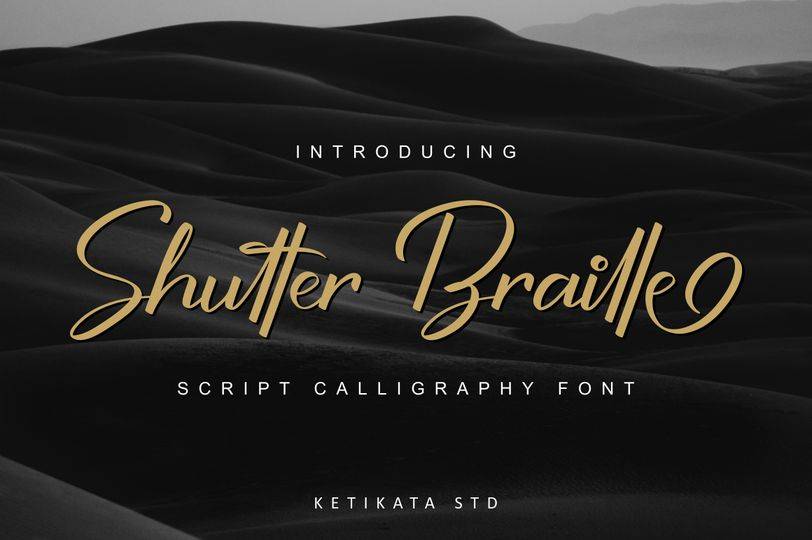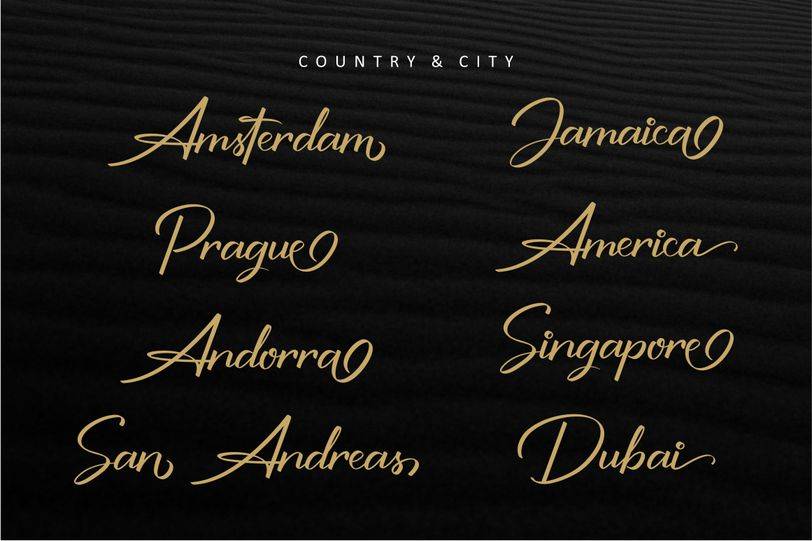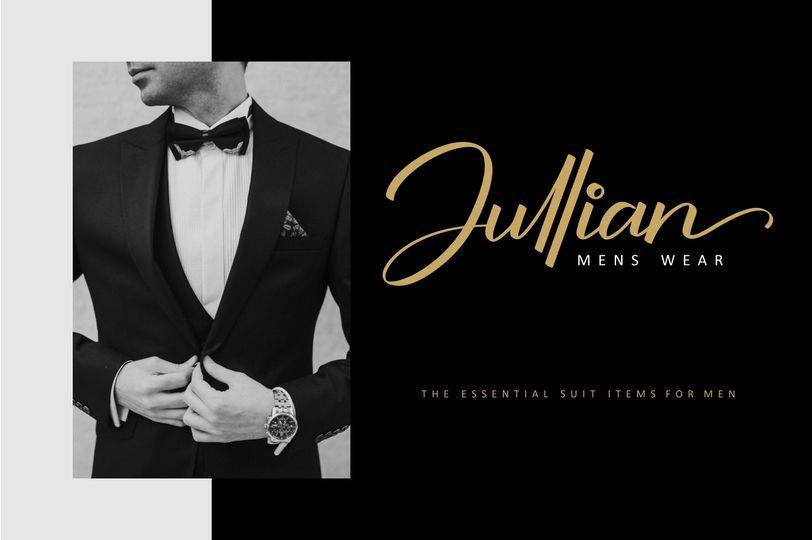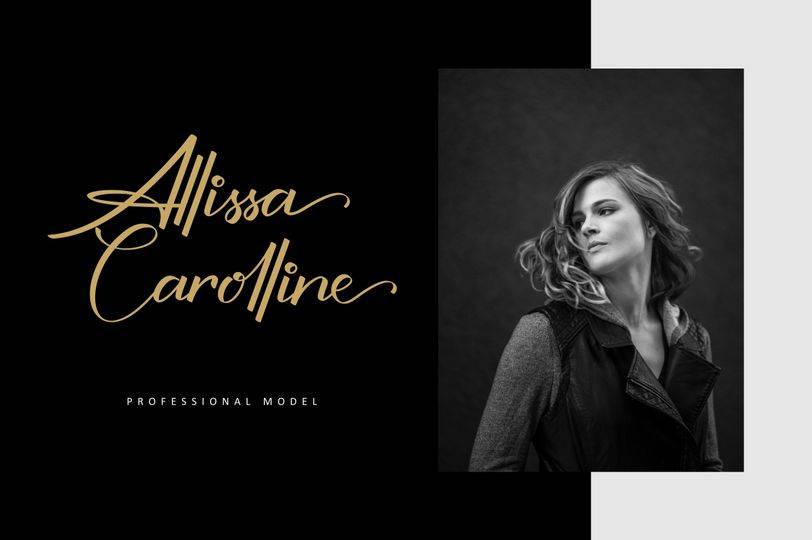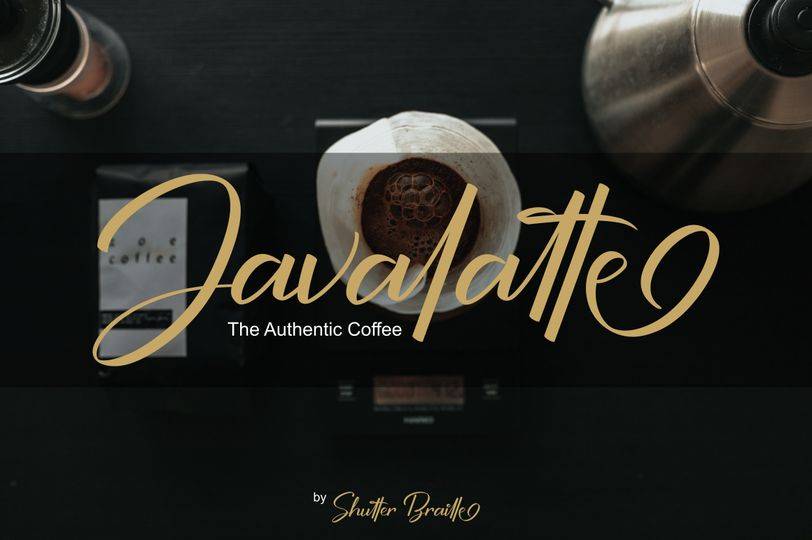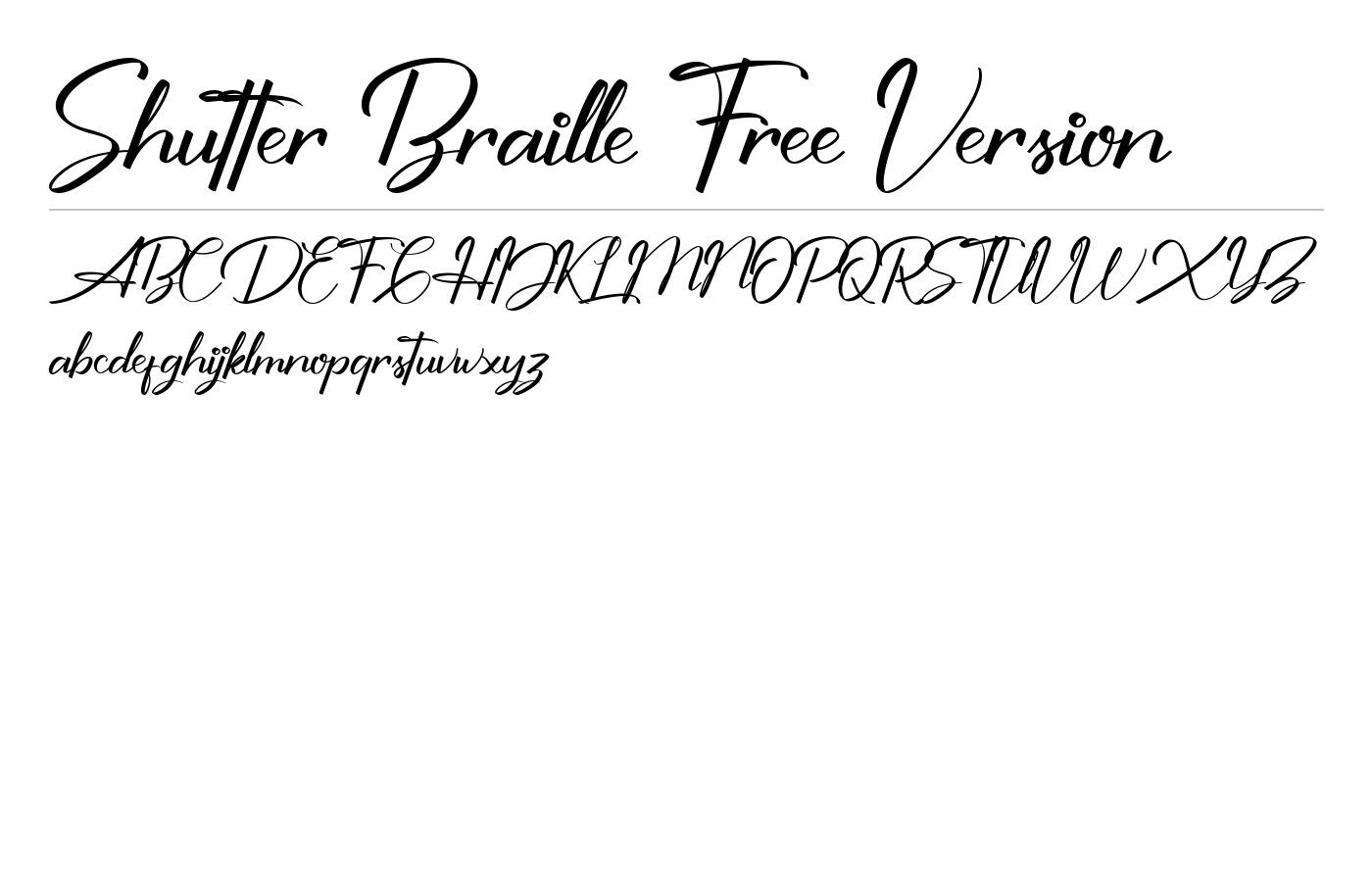
Shutter Braille is an elegant, modern script font with a natural, handwritten feel. It features smooth, flowing strokes with medium contrast and delicate, slightly irregular shapes that add a personal and artistic touch. Perfect for invitations, branding, and creative projects that want to convey sophistication and warmth.
Shutter Braille Font
About Shutter Braille Font
| Font family | Shutter Braille Font |
| Designer | Fuad Hasan |